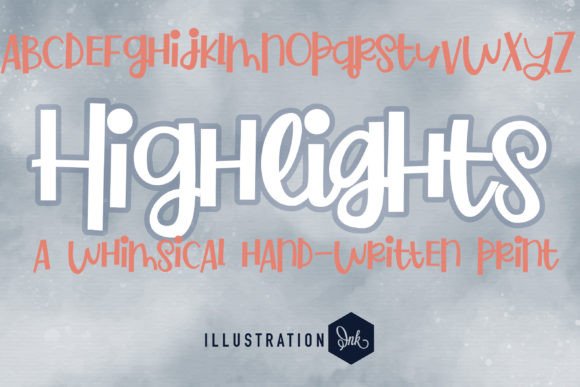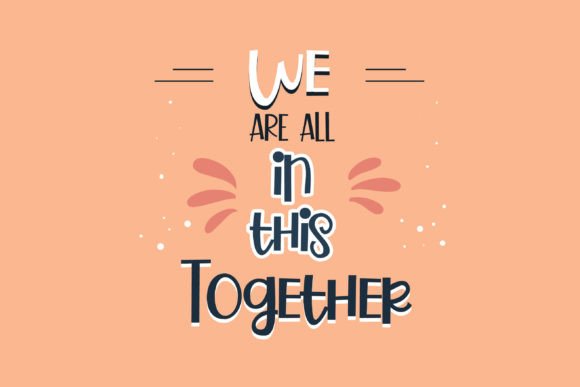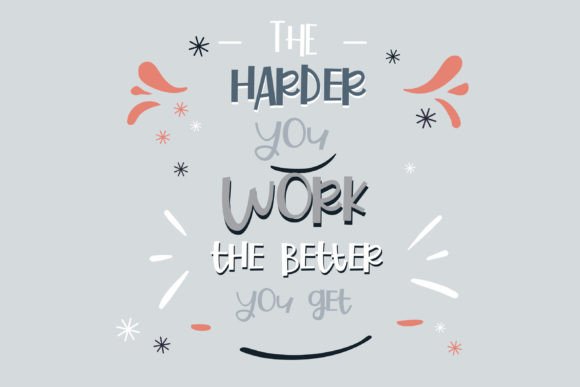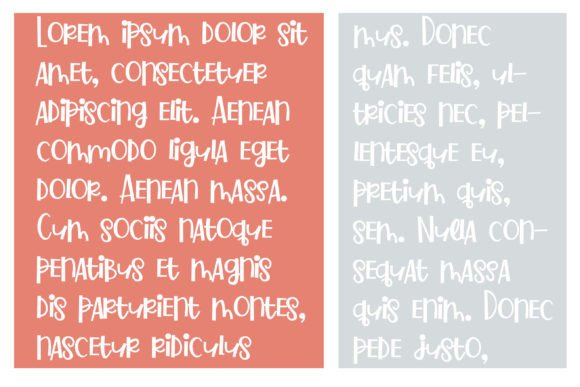
Highlights Font
About the Highlights Font
Step up your design game with Highlights Font, a font that exudes confidence and style. This hand-crafted sans serif is a fun and whimsical font with youthful lettering with a little toggle throughout.
Highlights Font excels in display applications such as headlines, short titles, and branding elements where its playful energy can shine. Its whimsical nature makes it ideal for packaging for children’s products or youthful brands. Avoid using it for body text or long-form content; its informal style would hinder readability.
For a balanced pairing, consider a clean, geometric sans-serif like Lato or a classic serif such as Garamond for body copy. This contrast creates visual harmony, letting Highlights Font’s playful personality stand out without overwhelming the design. A simple script font could also work for accents, depending on the overall brand aesthetic.
The font’s core personality is undeniably playful and youthful, conveying a sense of fun and approachability. It’s best suited for brands targeting a young, energetic demographic or projects that require a lighthearted and friendly tone.
Highlights Font Usage Examples
Highlights Font Example